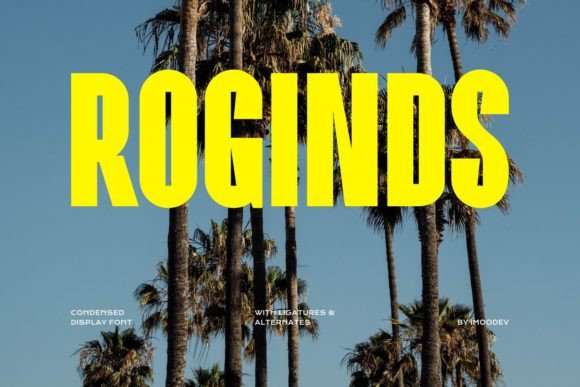
In a digital world clamoring for attention, Roginds Font, a modern bold creation by Imoodev, asserts itself with visual elegance, smooth curves, and beautiful ligatures. This display font, perfect for jersey numbers, transforms your work into a captivating visual masterpiece, imbued with authenticity and allure.
Roginds’ versatility spans across a wide spectrum of projects, from striking logos and enchanting invitations to sophisticated branding and captivating magazine layouts. Unleash your creativity in photography, card designs, product packaging, and product mockups. Adorn mugs with thought-provoking quotes, craft posters that command attention, and design labels that leave an indelible mark. Enrich signatures with a touch of individuality, elevate editorials with artistic flair, and create websites that resonate with your audience. Roginds effortlessly complements art deco projects, social media posts, and much more.
Immerse yourself in a font that seamlessly blends the personal and the professional. Bring life to personal projects, inspire creativity in studios, bolster the identities of corporate entities, and establish a commanding presence for creative agencies. Industries across the spectrum, including industrial, company, and beyond, will find in Roginds a font that perfectly aligns with their aspirations.